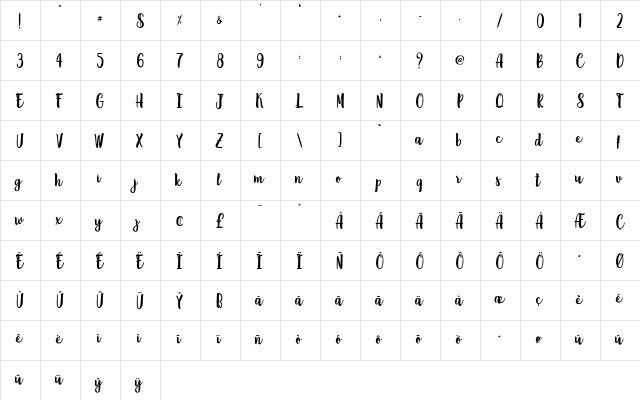
Lemon Brush - Personal Use Regular
Design Context for Lemon Brush - Personal Use Typeface
Lemon Brush - Personal Use brings a calligraphic fluidity to the page — its connecting strokes and expressive curves give it an unmistakably human quality.
Font Pairing: Combine Lemon Brush - Personal Use with a simple geometric sans for maximum contrast — the tension between flowing curves and clean structure is a classic typographic pairing.
Pro Tip: Pair Lemon Brush - Personal Use with a clean sans-serif for supporting text. The contrast between fluid script and geometric structure creates an elegant typographic hierarchy.